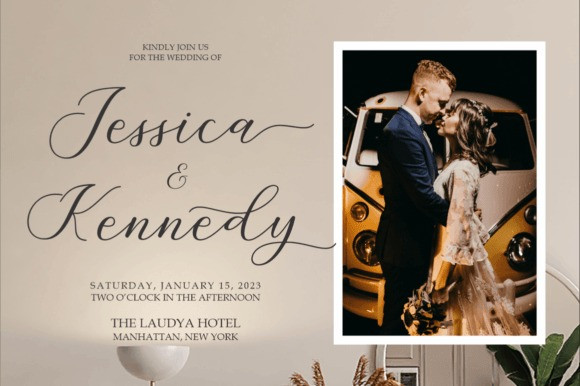
Hazelnut Spread Font
Hazelnut Spread Font is a beautiful and modern handwritten font perfect for branding, wedding invites, magazines, mugs, business cards, quotes, posters, and more.